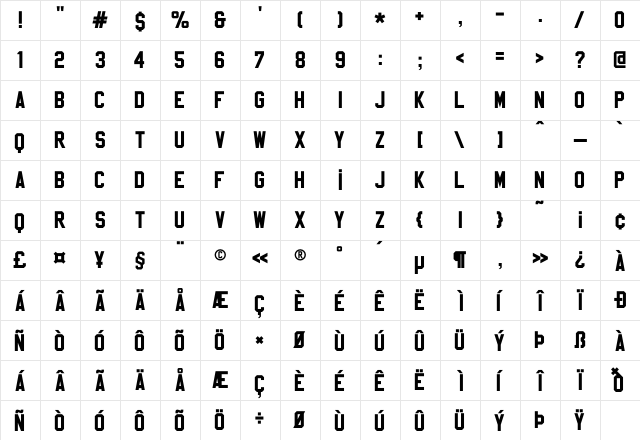
Sablon Up Regular
| Foundry | Youssef Habchi |
| Designer | Youssef Habchi |
Design Context for Sablon Up Typeface
Sablon Up takes a measured approach to typography — its balanced proportions and neutral character make it a reliable workhorse for both digital and print work.